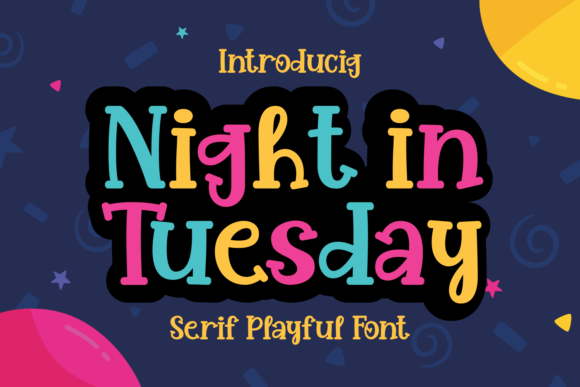
Night in Tuesday Font: A Cute and Fun Serif Font for Outstanding Designs
In the world of typography, fonts play a crucial role in making designs stand out. A unique and eye-catching font can elevate a design from ordinary to extraordinary. One such font that has gained popularity among designers is the Night in Tuesday font. This cute and fun serif font has become a favorite among designers, and for good reason. In this article, we’ll explore the features and benefits of the Night in Tuesday font and why it’s perfect for making original and outstanding designs.
What is Night in Tuesday Font?
Night in Tuesday font is a serif font that boasts a playful and charming design. Its unique features make it an excellent choice for designers looking to add a touch of personality to their work. The font’s design is inspired by traditional serif fonts, but with a modern twist that sets it apart from more conventional fonts.
Key Features of Night in Tuesday Font
- Unique Serif Design: The Night in Tuesday font features a distinctive serif design that adds a touch of elegance and sophistication to any design.
- Cute and Fun: The font’s playful design makes it perfect for projects that require a lighthearted and whimsical touch.
- Highly Readable: Despite its playful design, the Night in Tuesday font is highly readable, making it suitable for body text and headings.
- Versatile: The font is versatile and can be used for a wide range of design projects, from branding and advertising to packaging and digital media.
Why Use Night in Tuesday Font?
The Night in Tuesday font is an excellent choice for designers looking to create original and outstanding designs. Here are some reasons why:
Create Original Designs
The Night in Tuesday font’s unique design makes it an excellent choice for designers looking to create original designs that stand out from the crowd. Its playful and charming design ensures that your work will not go unnoticed.
Perfect for Branding and Advertising
The font’s highly readable design and cute and fun style make it perfect for branding and advertising projects. Use it to create eye-catching logos, taglines, and ad copy that will grab the attention of your target audience.
Suitable for Digital Media
The Night in Tuesday font is also suitable for digital media, including social media graphics, blog posts, and website designs. Its versatility ensures that it will look great on any device or platform.
Tips for Using Night in Tuesday Font
To get the most out of the Night in Tuesday font, here are some tips to keep in mind:
Pair it with Other Fonts
To create visual interest, pair the Night in Tuesday font with other fonts that complement its design. A sans-serif font, for example, can provide a nice contrast to the font’s serif design.
Use it for Headings and Titles
The Night in Tuesday font is perfect for headings and titles. Use it to create eye-catching headings that draw attention to your content.
Experiment with Colors and Textures
To add depth and interest to your design, experiment with different colors and textures. The Night in Tuesday font looks great with bold colors and subtle textures.
In conclusion, the Night in Tuesday font is a cute and fun serif font that is perfect for making original and outstanding designs. Its unique features, versatility, and high readability make it an excellent choice for designers looking to add a touch of personality to their work. By following the tips outlined in this article, you can get the most out of the Night in Tuesday font and create designs that stand out from the crowd.